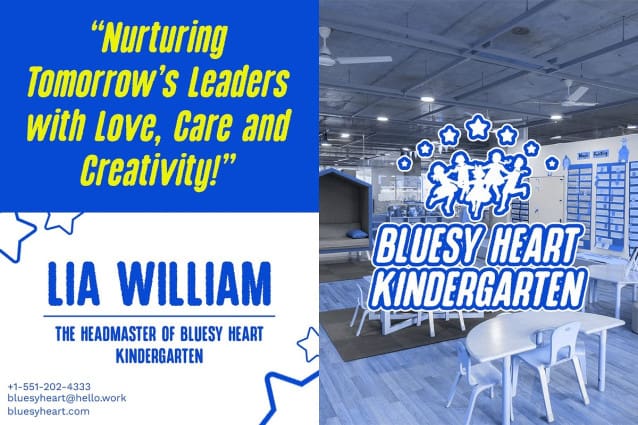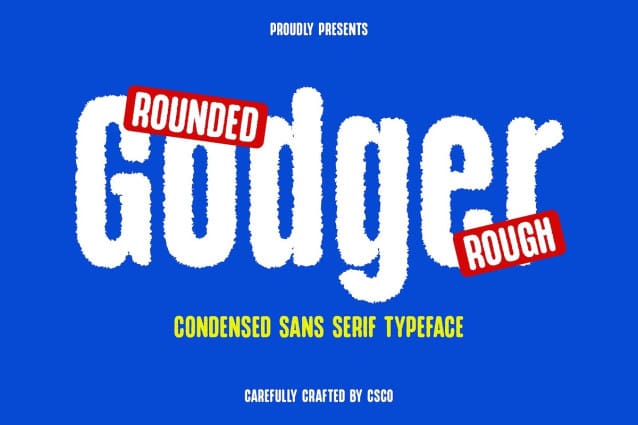
Godger Rounded Rough Font
Godger Rounded Rough Font is a modern sans-serif font that pairs bold, condensed shapes with rounded edges. Its robust and compact design ensures a strong visual impact, while the rounded contours soften the overall look, adding a friendly and approachable feel.
Unrefined Charm with a Unique Aesthetic The rough effect in this font introduces a gritty, textured quality to the letterforms, giving them a distinctive, unrefined appearance. This effect enhances the font’s boldness and individuality, providing a dynamic contrast to its rounded shapes and creating a striking visual presence.
Ideal for Prominent Visual Impact Perfect for applications requiring a bold, standout appearance, this rounded rough font excels in posters, branding, and promotional materials. Its strong presence and distinctive style make it an excellent choice for designs that need to capture attention and convey a sense of strength and uniqueness.
Perfect for Posters, Branding, and Promotions With its powerful combination of bold, rounded design and gritty texture, this rounded rough font is perfect for projects that demand a strong and memorable look. Its unique aesthetic makes it ideal for posters, branding, and promotional materials, where a prominent and distinctive visual impact is essential.